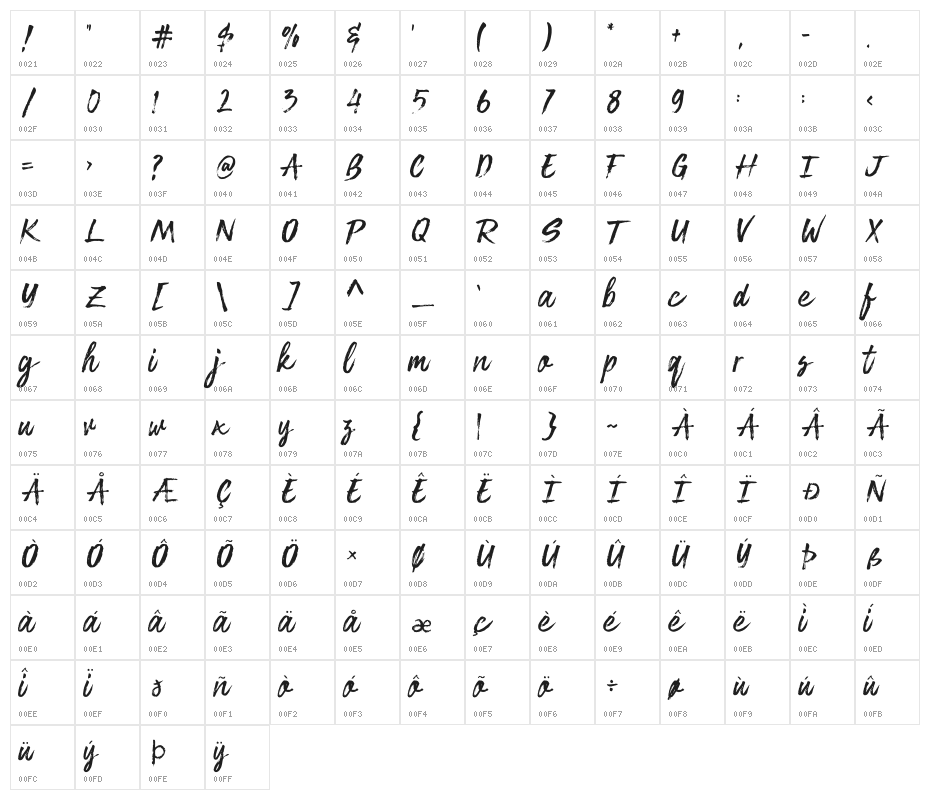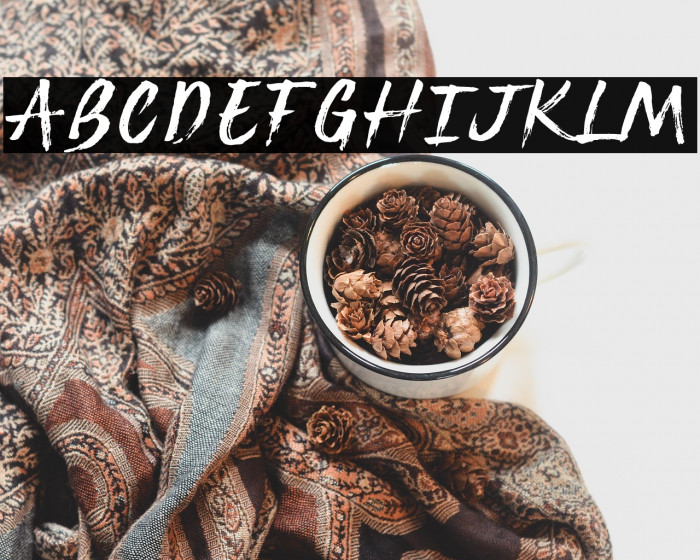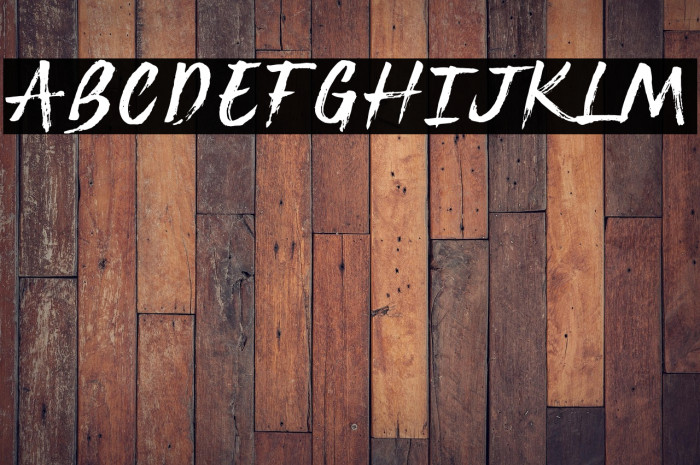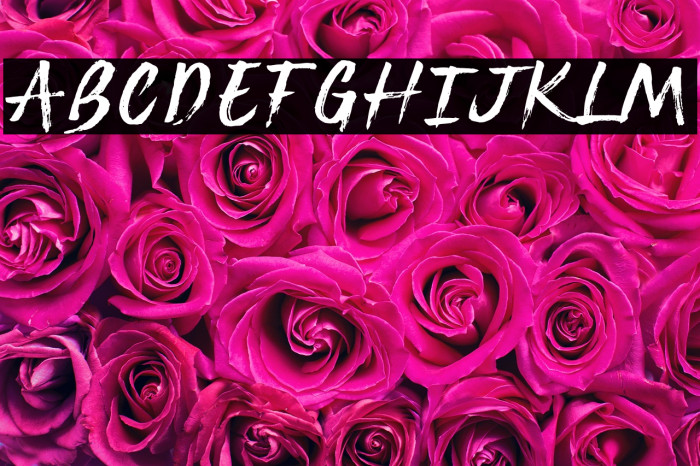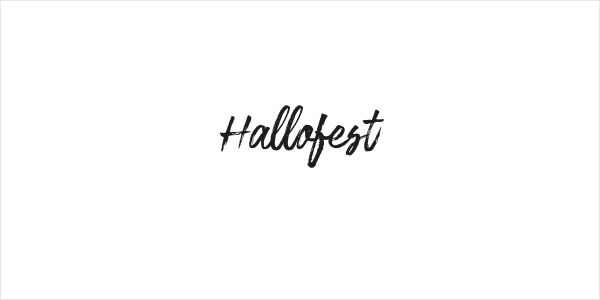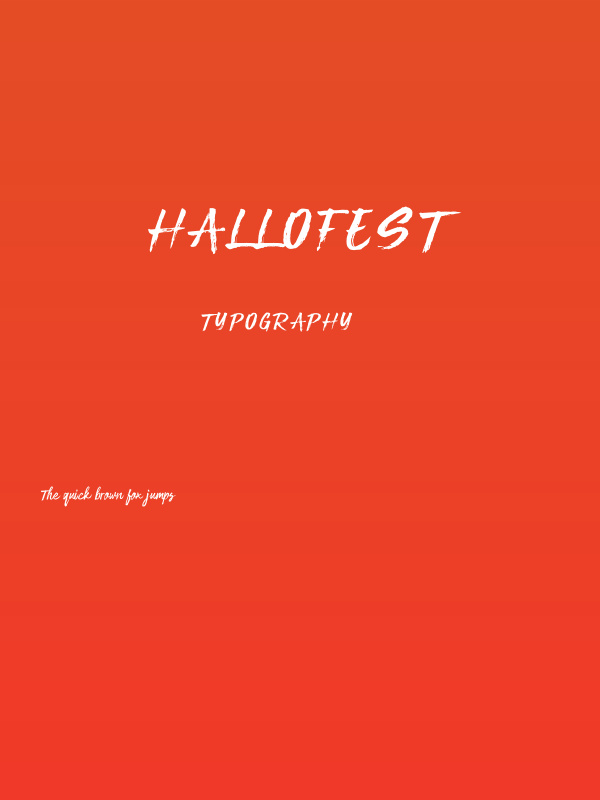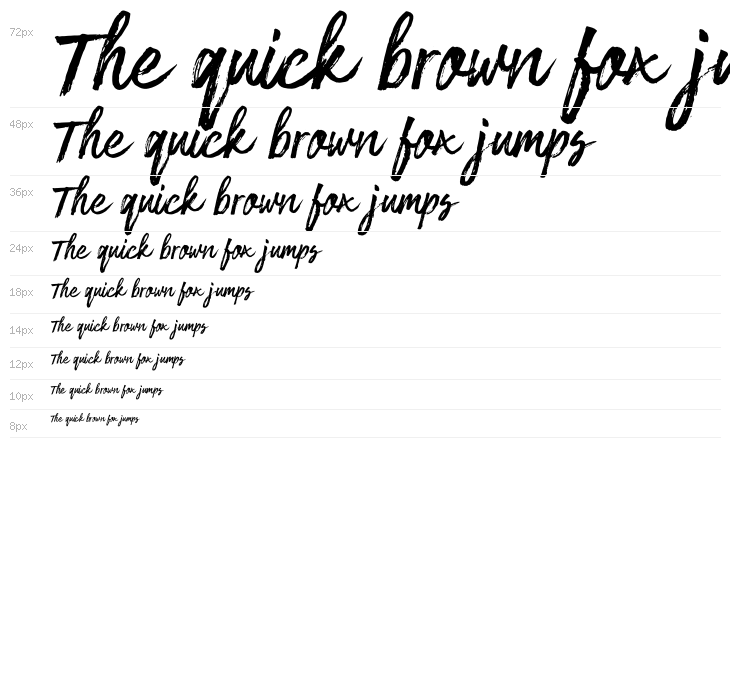
Hallofest Font
Hallofest Description
This font features a bold, expressive style with a brush-like texture that gives it a dynamic and energetic appearance. The strokes are uneven, adding a sense of movement and spontaneity. The uppercase letters are tall and commanding, while the lowercase letters maintain a consistent flow, enhancing readability. Numbers and special characters are crafted with the same artistic flair, making them stand out. The overall design is both modern and artistic, suitable for projects that require a strong visual impact.
Overall StyleModern, Artistic
Proposed ProjectsIdeal for posters, branding, album covers, and creative projects that require a bold statement.